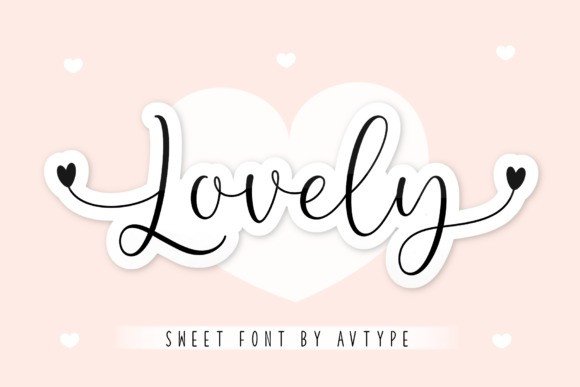
Lovely Display Font
Lovely Display Font is the handwritten masterpiece typeface for luxury, branding, logotype, wedding invites, greeting cards, promotional graphics. It’s designed and shared by AV Type. with characters that dance along the baseline. This font is PUA encoded which means you can access all of the glyphs and swashes with ease!